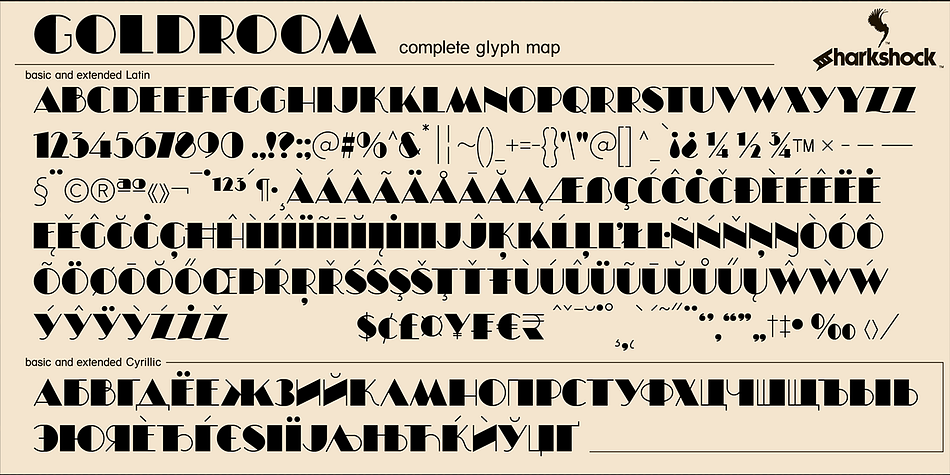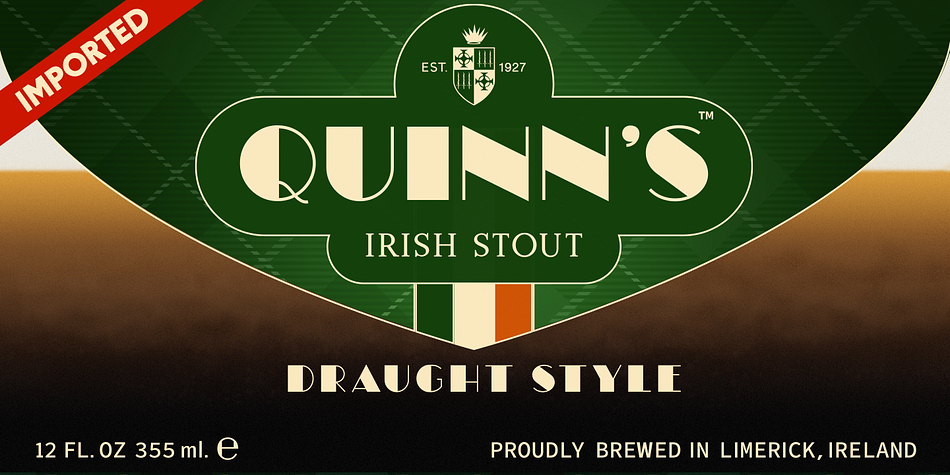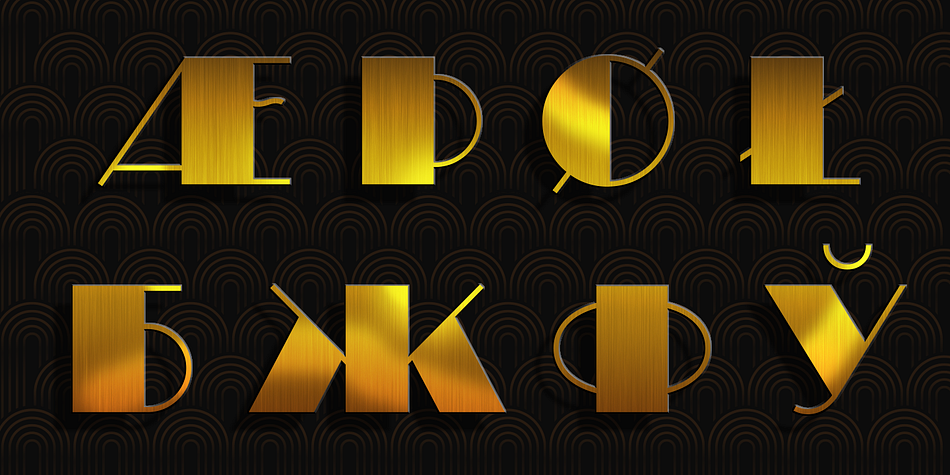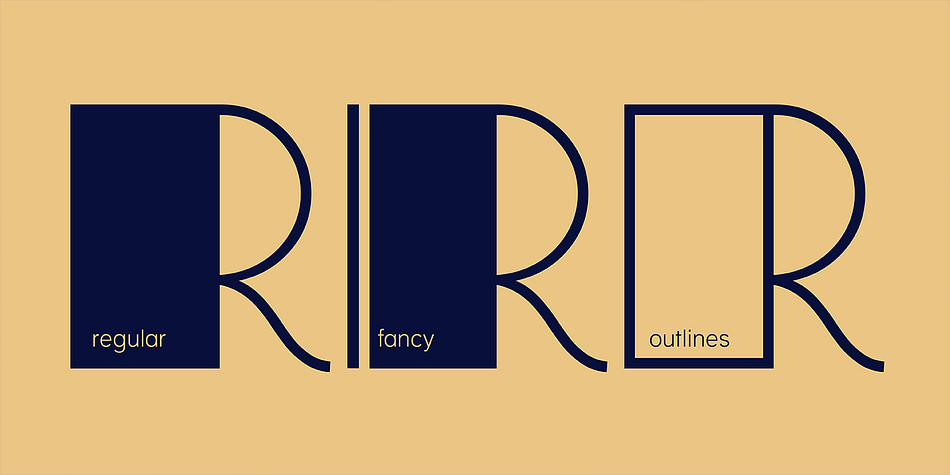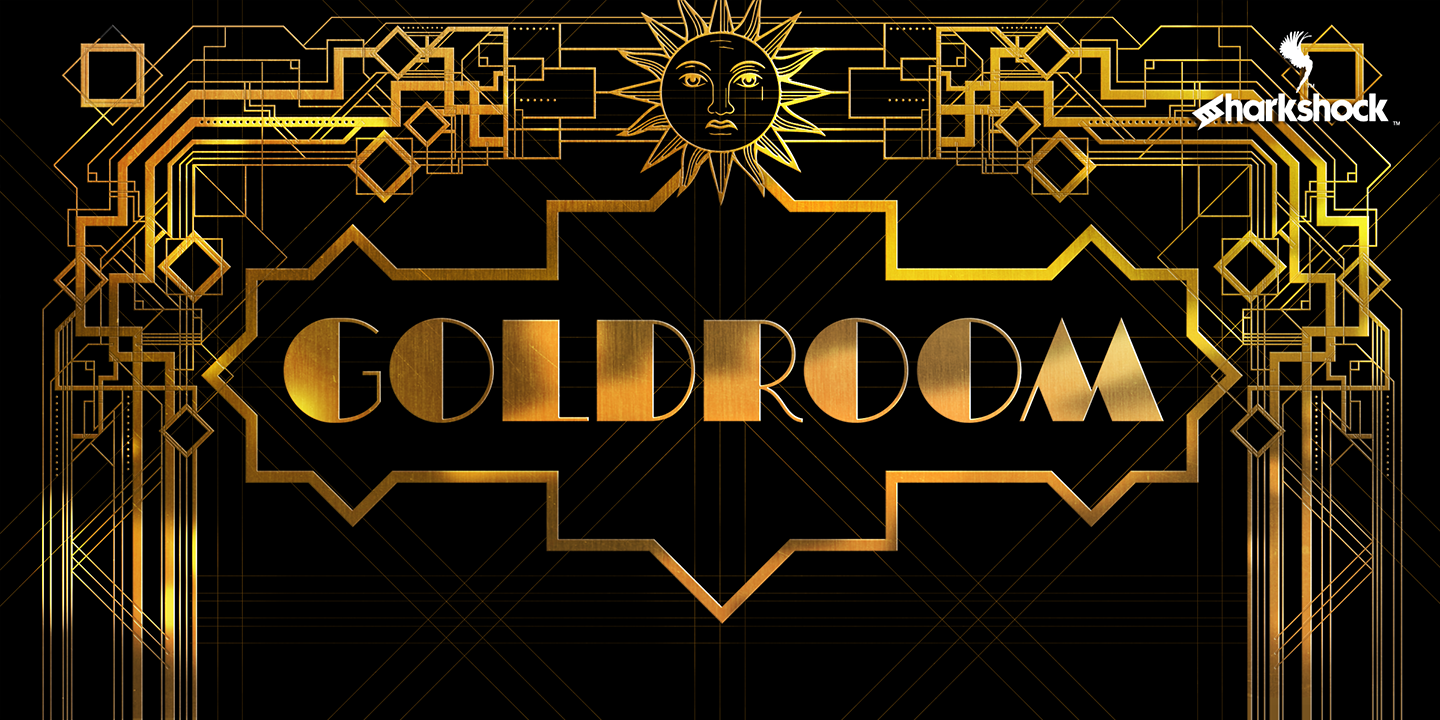
GOLDROOM
Designed by Dennis Ludlow, Goldroom is a display and display sans font family. This typeface has three styles and was published by Sharkshock.
Goldroom is an all caps display font that joins a fraternity of art deco inspired type. Special attention was paid to symmetry and contrast with emphasis on sharp angles and simple shapes. Some character pairs alternate between undulating lines and straight ones for a good variety in different settings. Line flow and negative space play important roles. This is most evident in the two alternate versions. Many different languages are supported with an extensive mapping of international characters including European accents and Cyrillic. This family is represented in 3 classic styles. Use Goldroom Fancy for a retro movie poster or the Outlines version for a logo. Goldroom is equipped with Basic and extended Latin, Basic and extended Cyrillic, and kerning.